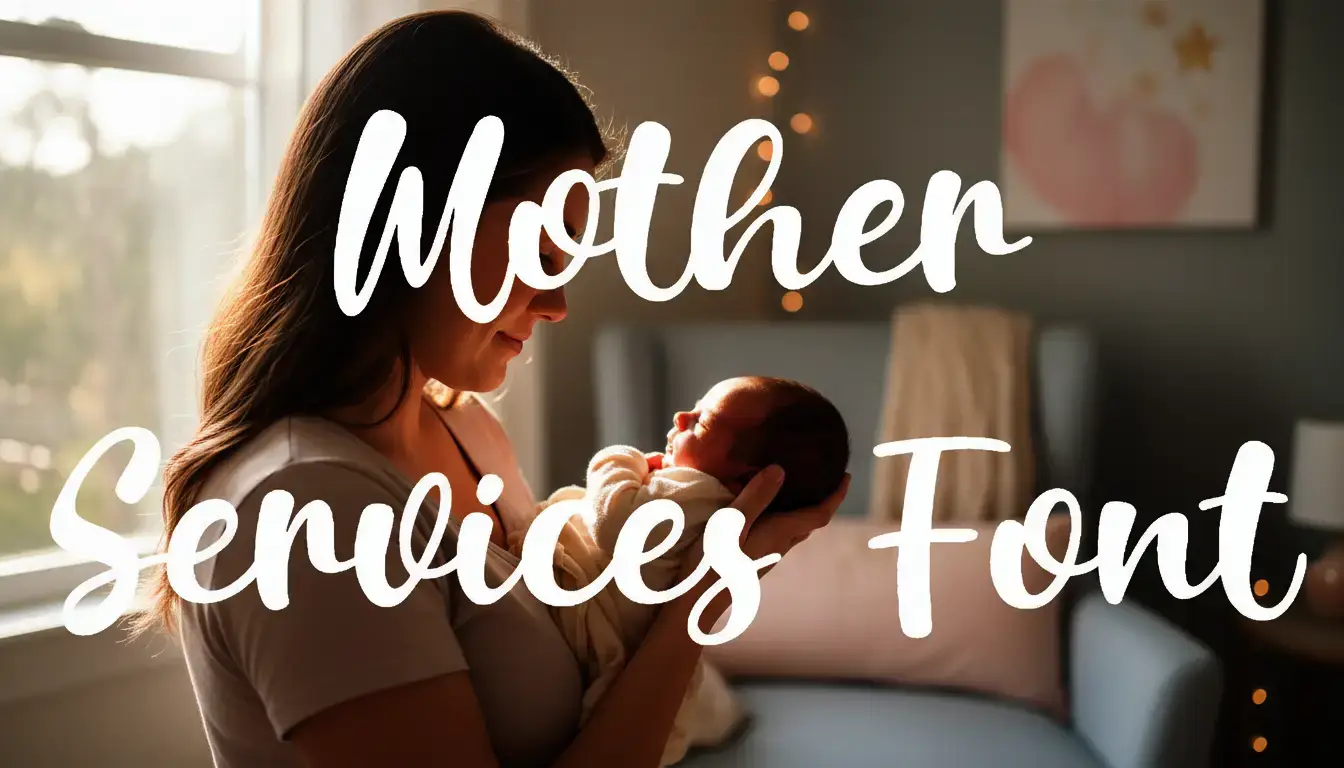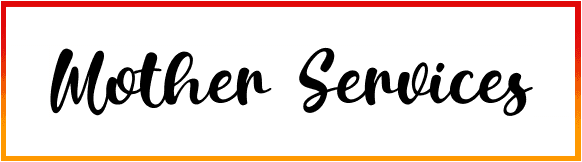
Mother Services Font
Mother Services
Mother Services is a script font made by Khurasan. Its flowing, pen-made letters give names and short phrases a personal, polished look. It's a free download, and you can try it with your own text in the preview above first.
What You Can Type With Mother Services
With complete upper and lowercase letters and all ten digits, Mother Services is ready for real wording, not just a single headline. Everyday marks like &, !, ? and @ are there too. There are no accented letters like é or ñ, so it's best kept to English text.
Where Mother Services Works Best
Mother Services is a natural fit for wedding invitations, logos and signature-style headings. Script fonts read best in short bursts, so keep it to names, titles and one-line quotes. Skip all caps: script capitals are drawn to start a word, not to fill one.
Does Mother Services support accented letters?
No. Mother Services has no accented letters such as é, ñ or ü, so it's best for English text.